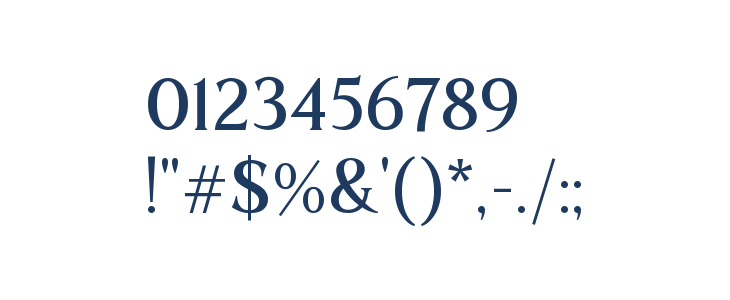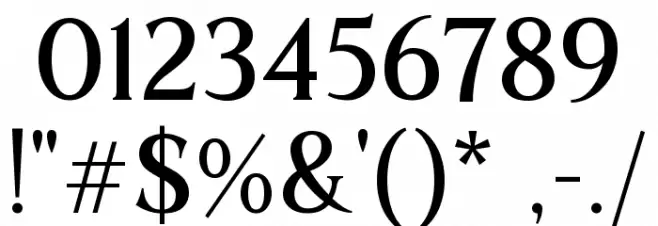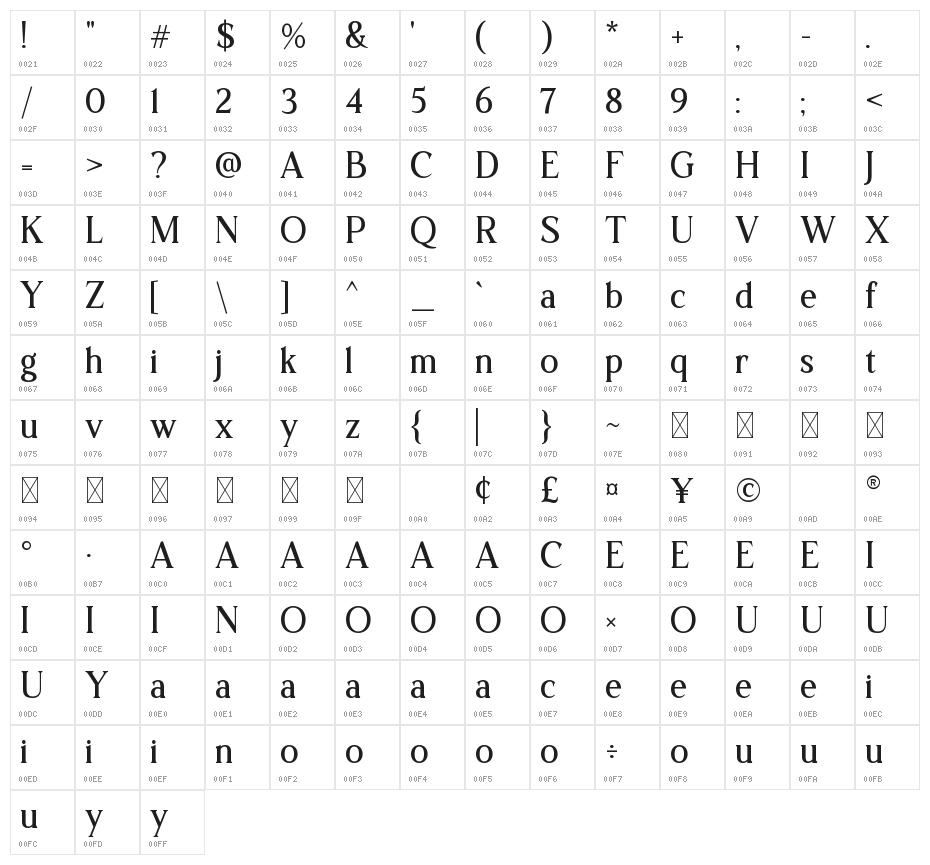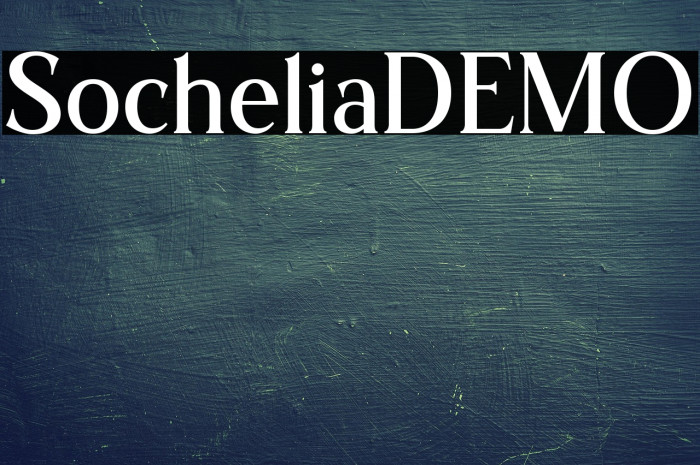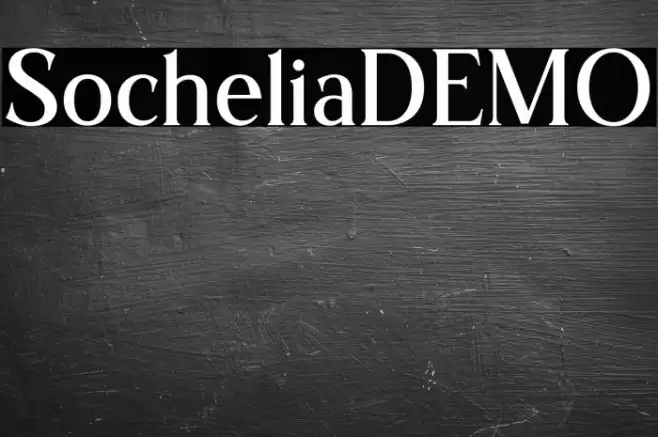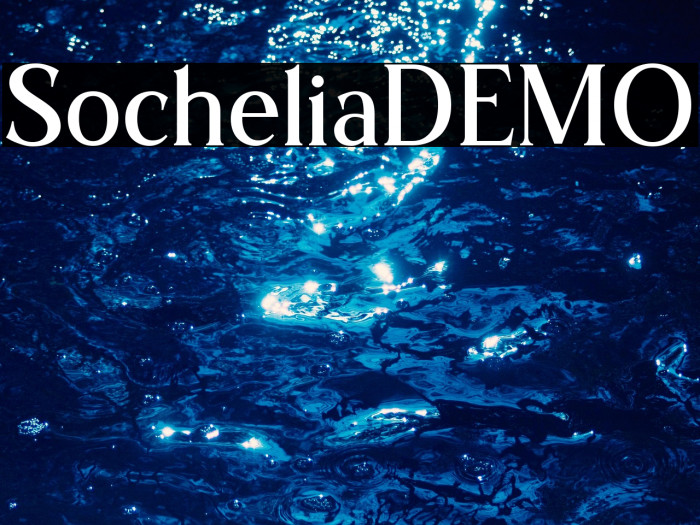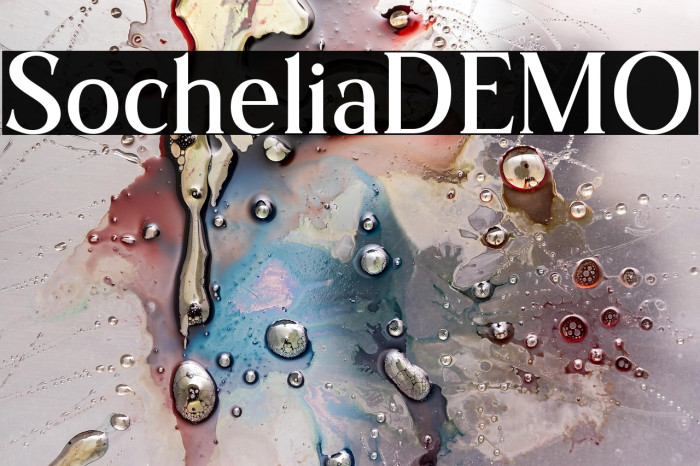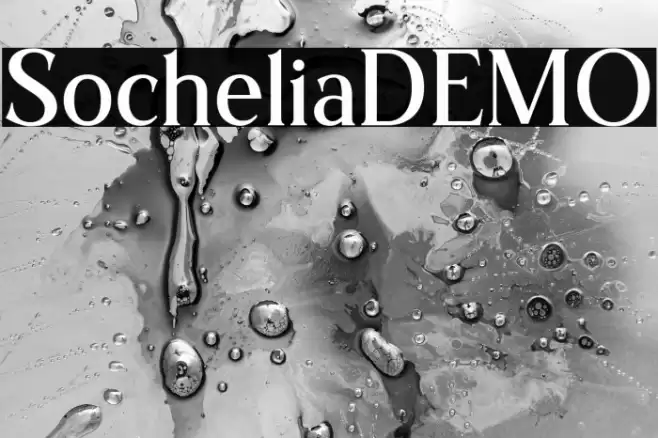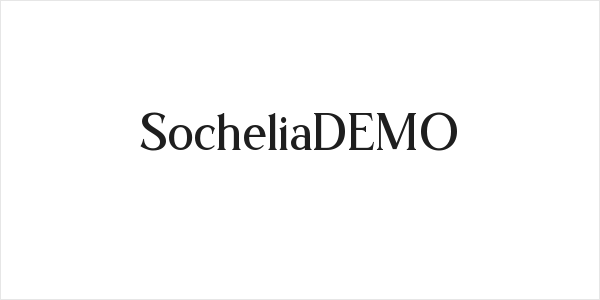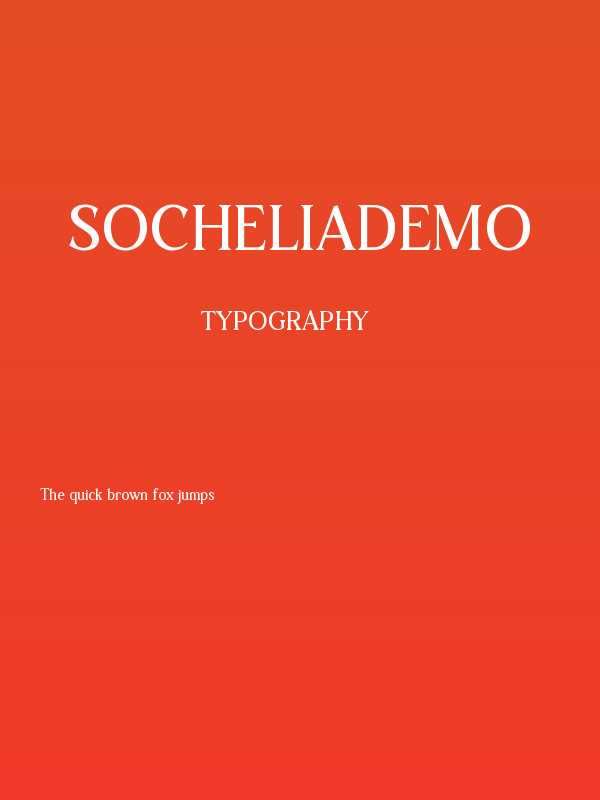
SocheliaDEMO Font
SocheliaDEMO Description
This font features a classic serif style with elegant and refined strokes. The uppercase letters are bold and commanding, while the lowercase letters maintain a graceful and sophisticated appearance. The numerals are clear and legible, making them suitable for various applications. Special characters are well-designed, complementing the overall aesthetic. The font's balance between thick and thin strokes provides a medium contrast, enhancing readability and visual appeal.
| Proposed Projects | Ideal for editorial design, book covers, formal invitations, and branding projects that require a touch of elegance and tradition. |